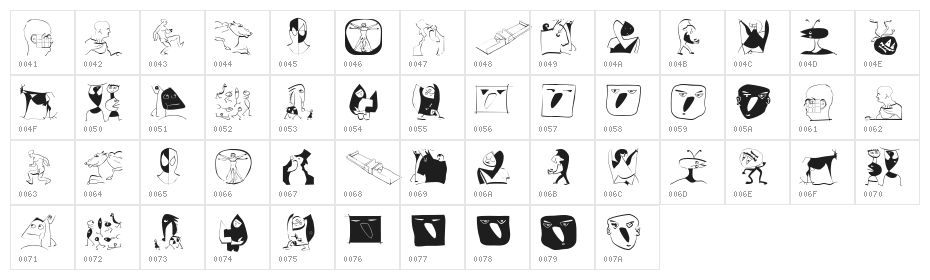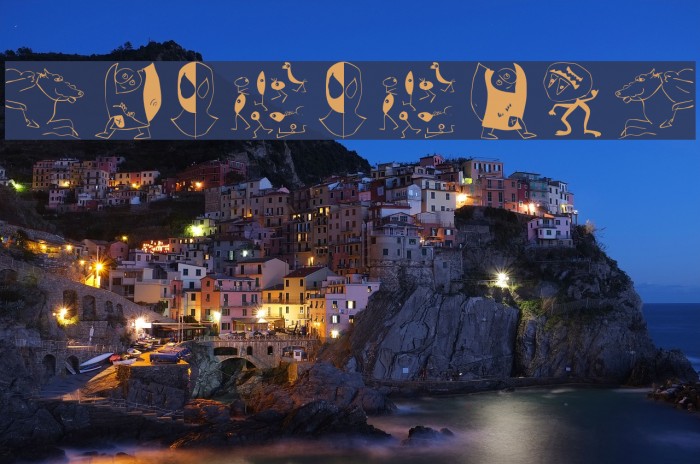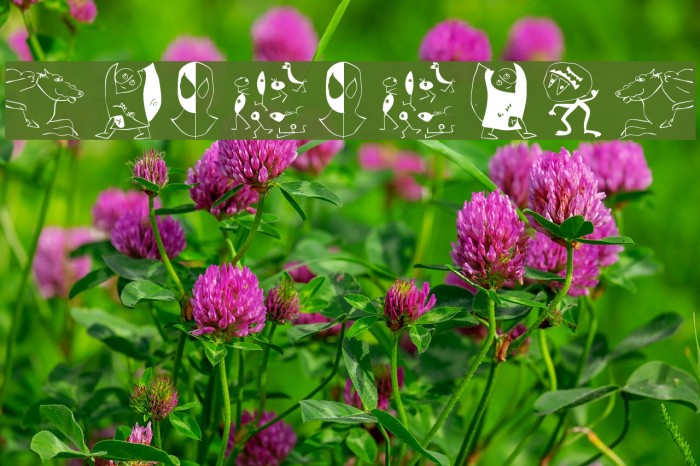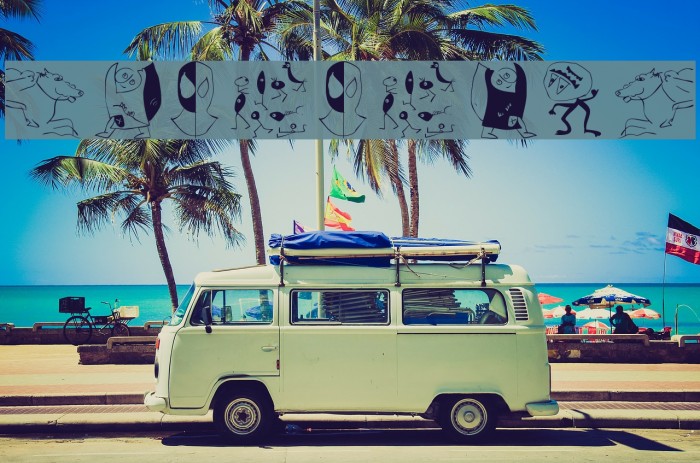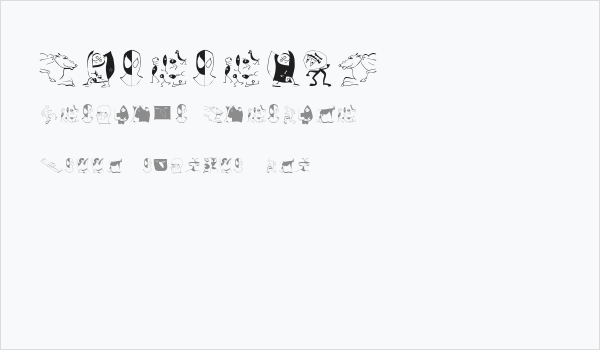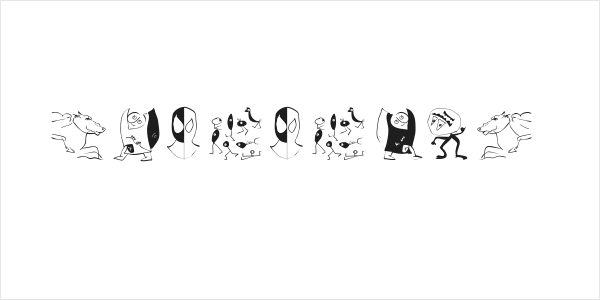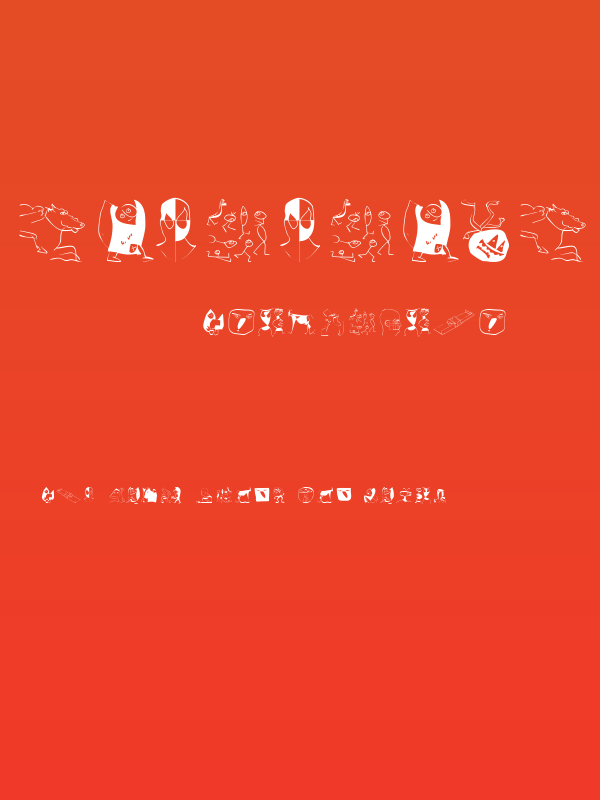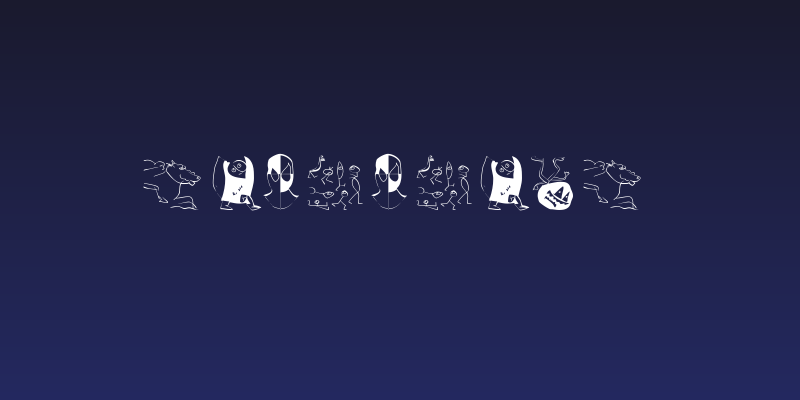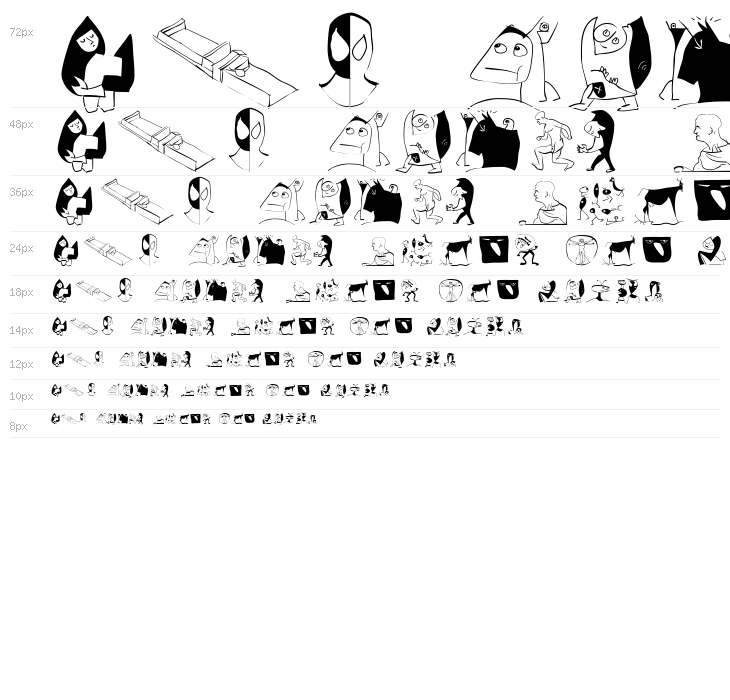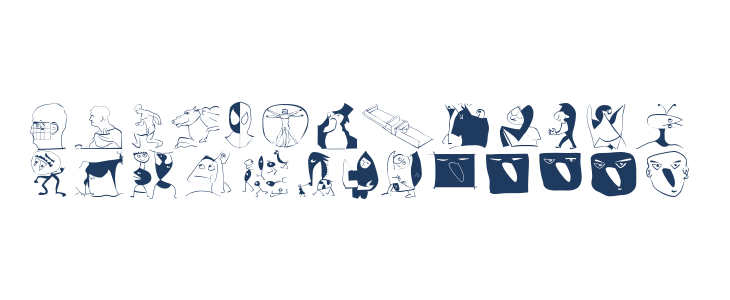
DuererUnd Font
DuererUnd Description
A highly decorative and whimsical dingbat font composed of abstract, cartoon-like human and animal figures, each glyph featuring a unique illustration with playful and surreal qualities. The characters are irregular in shape, with a mix of filled and outlined forms, and no consistent baseline or alignment.
Overall StyleDecorative, Whimsical, Artistic
Use CaseIllustrative elements, decorative accents, creative titles.
Proposed ProjectsChildrenÒ€ℒs books, creative posters, art projects, editorial illustrations, playful branding.